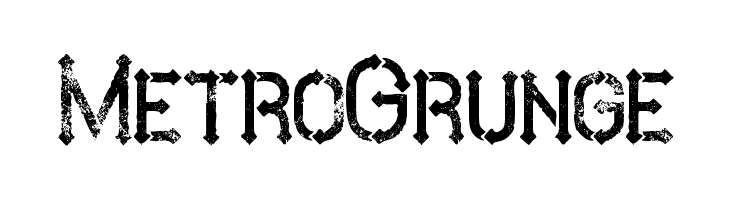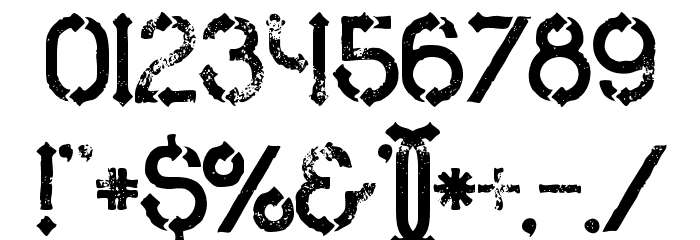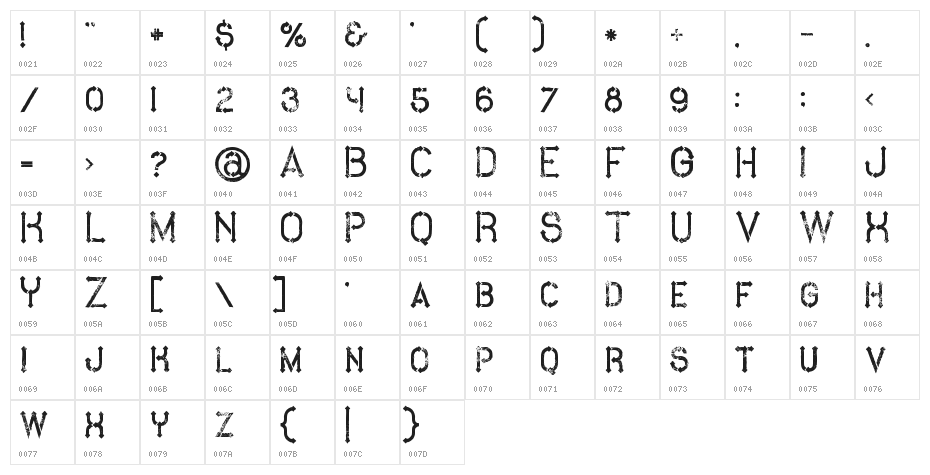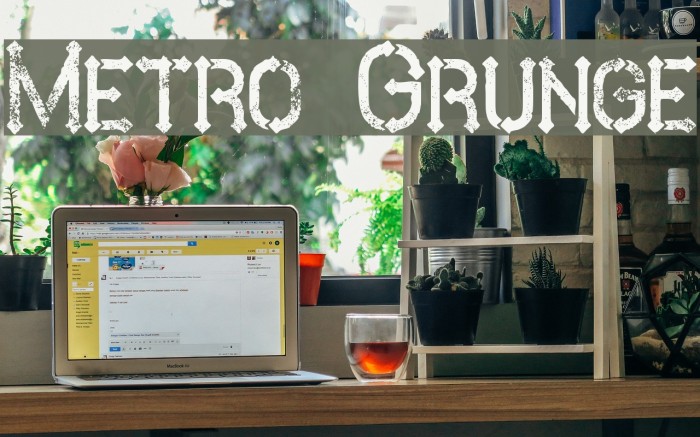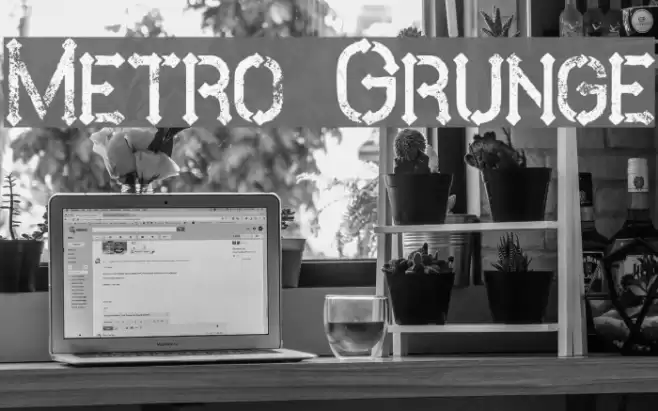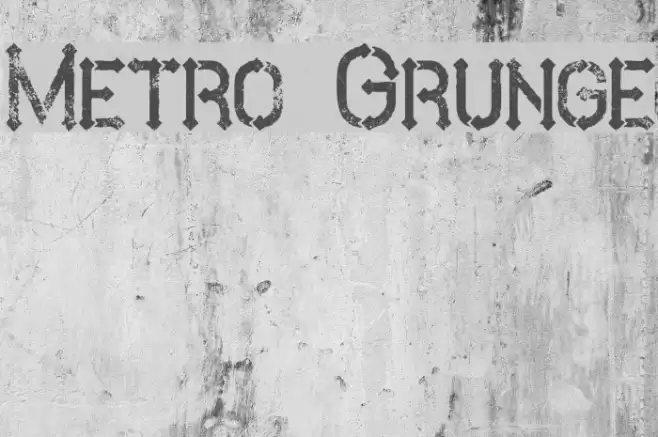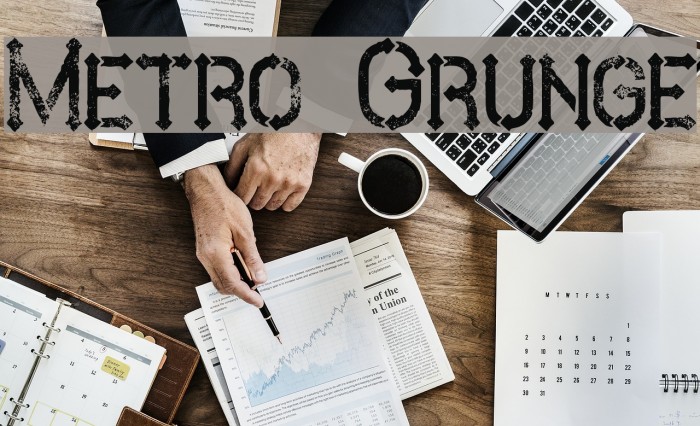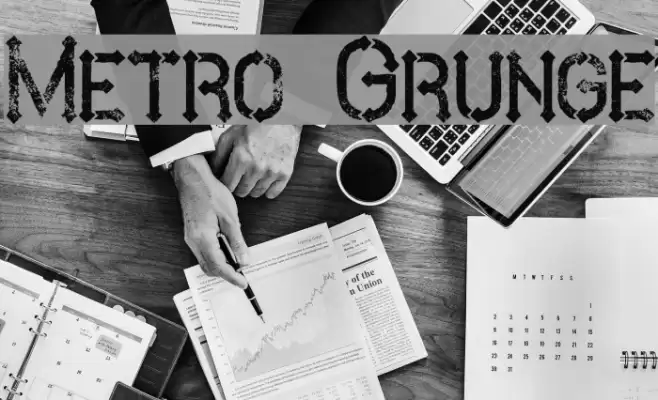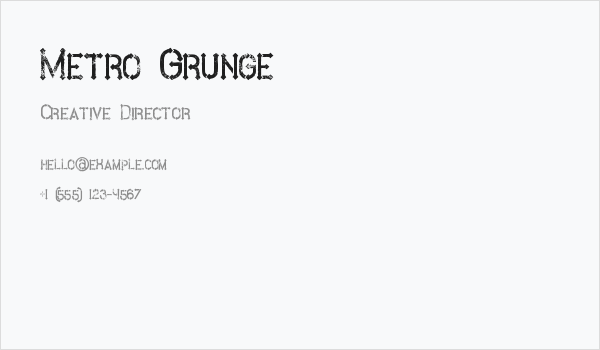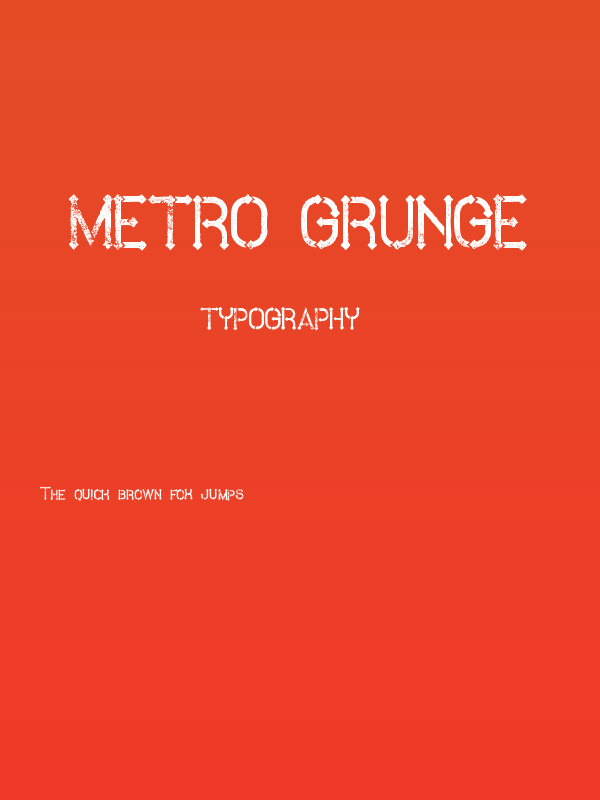
Metro Grunge Font
Metro Grunge Description
This font embodies a rugged, distressed aesthetic, reminiscent of urban decay and grunge culture. The characters are bold and heavily textured, giving the impression of wear and tear, as if they have been eroded over time. The uppercase and lowercase letters maintain a consistent style, with jagged edges and irregular surfaces that add to the gritty feel. Numbers and special characters follow the same design principles, ensuring a cohesive look across all glyphs. This font is ideal for projects that require a raw, edgy appearance, such as music album covers, street art-inspired designs, or any creative work that seeks to evoke a sense of rebellion and nonconformity.
| Overall Style | Grunge, Urban, Edgy |
| Proposed Projects | Album covers, street art designs, rebellious branding, edgy posters. |